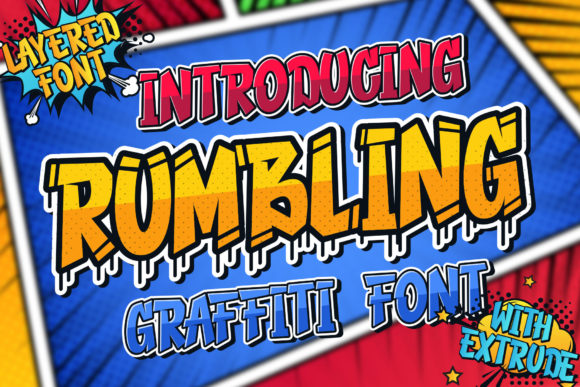
Dive into the realm of urban artistry with Rumbling Font, a captivating display font that exudes the raw energy and vibrant spirit of graffiti. This bold and chunky lettered typeface is meticulously crafted to bring a touch of street art authenticity to your digital creations. Unleash your creativity and watch as your designs transform into visually striking masterpieces.
With Rumbling Font, you'll have the power to turn ordinary words into captivating statements. Its playful and expressive style adds an instant touch of personality to posters, flyers, social media graphics, and even website headers. Imagine the impact of your designs when they burst onto the screen, demanding attention with their urban edge.
Step into the world of Rumbling Font and experience the thrill of creating designs that resonate with your audience. This font is perfect for capturing the essence of urban culture, street fashion, music, and art. Whether you're a seasoned designer or just starting out, Rumbling Font is the ultimate tool for making a statement.
So, why settle for ordinary fonts when you can embrace the extraordinary? Download Rumbling Font today and unlock a world of creative possibilities. Let your designs speak volumes with their bold and chunky letters, evoking the raw energy of graffiti and leaving an unforgettable impression. Unleash your inner artist and make a statement with every design you create!